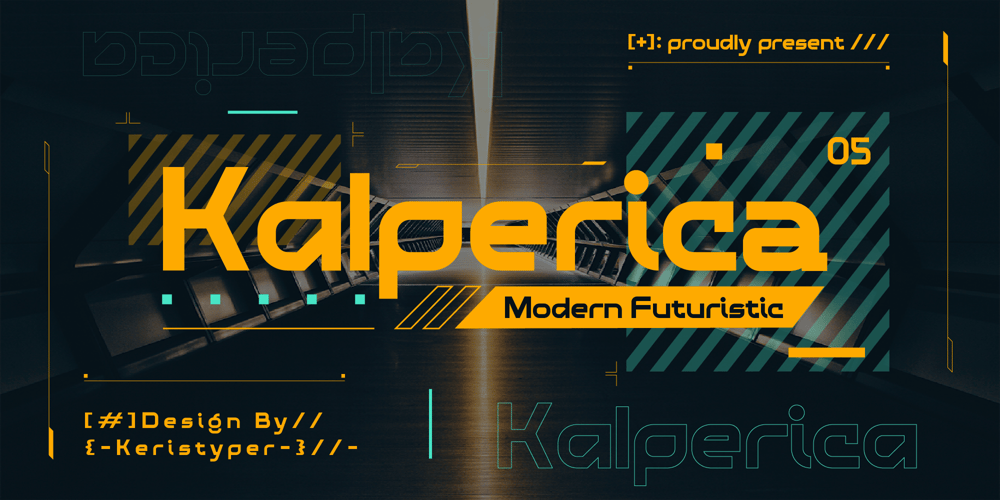
Kalperica
Kalperica font
Kalperica Font Family was designed by Tezar Tantular and published by Keristyper Studio. Kalperica contains 1 styles and family package options. Kalperica is a futuristic font for the design of minimalist characteristics that has a digital world feel of the metaverse. This font is good for logo design, Social media, Movie Titles, Books Titles, short text even long text letters, and good for your secondary text font with sans or serif.Featured: Standard Uppercase & Lowercase Numeral & Punctuation Multilingual : ä ö ü Ä Ö Ü ß ¿ ¡ Alternate & Ligature PUA encoded We recommend programs that support the OpenType feature and the Glyphs panel such as Adobe applications or Corel Draw. so you can use all the variations of the glyphs.Hope you enjoy our fonts!